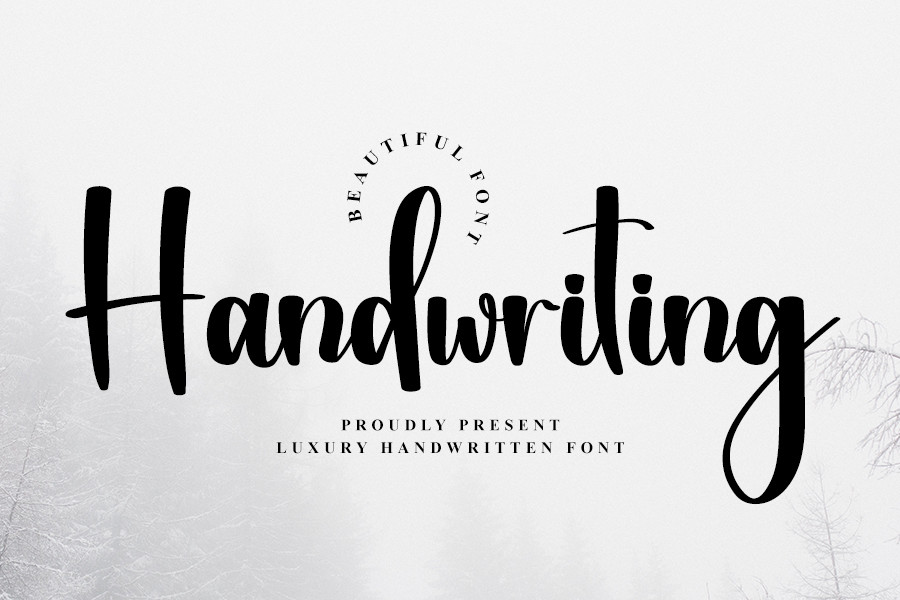
Practically, you can not create a design without typography elements since the font is a crucial point in enhancing the design value. Thus, you must learn about the 6 font classifications in typography to implement them into your design correctly.
Key Takeaways:
- The importance of typography in design for business to elevate brand identity.
- Successful brands pull the design with the correct typography pick for their logos.
- How to differentiate between the font classification in design.
The Type of Typography
1. Serif Typography
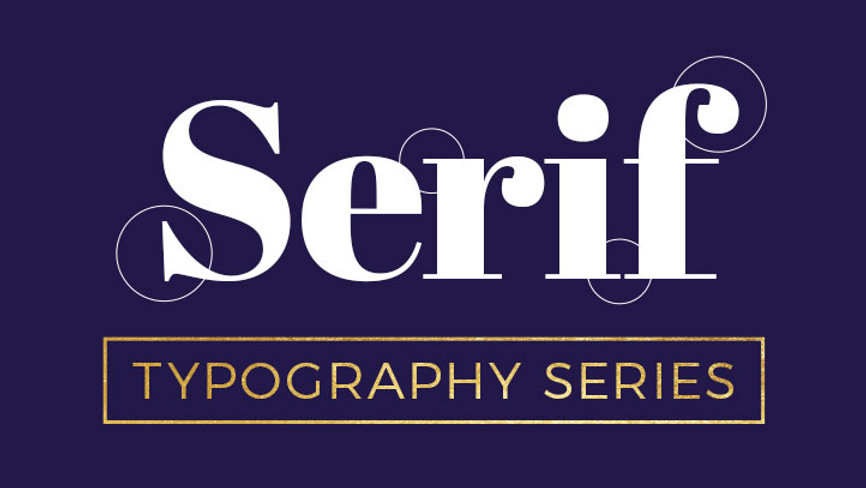
Serif is the most classic typeface that was found around the 15th century. This typography has an archetypal characteristic, which is the stroke in the top and bottom parts of the typeface. The curved or straight strokes represent classic, formal, and timeless typeface that can enhance readability.
There are 4 typefaces of Serif, such as.
- Old: Curved at the top and has minimum contrast between the strokes.
- Transitional: Occurs as a transition from old-styled Serif to modern Serif with more contrast between strokes and additional weight on the vertical axis.
- Modern: Modern looks are special with the ball shape at the end of strokes and less contrast rather than the Old and Transitional Serif.
- Slab: A bold and heavy Serif typeface with almost no contrast.
The most familiar Serif typefaces are Times New Roman, Georgia, and Baskerville, most likely to be used for formal occasions such as logos and books. Famous brands such as Vogue, Rolex, and Tiffany &Co. are using Serif for their logo to enhance the elegance to speak for the brand identity.
2. Sans Serif Typography
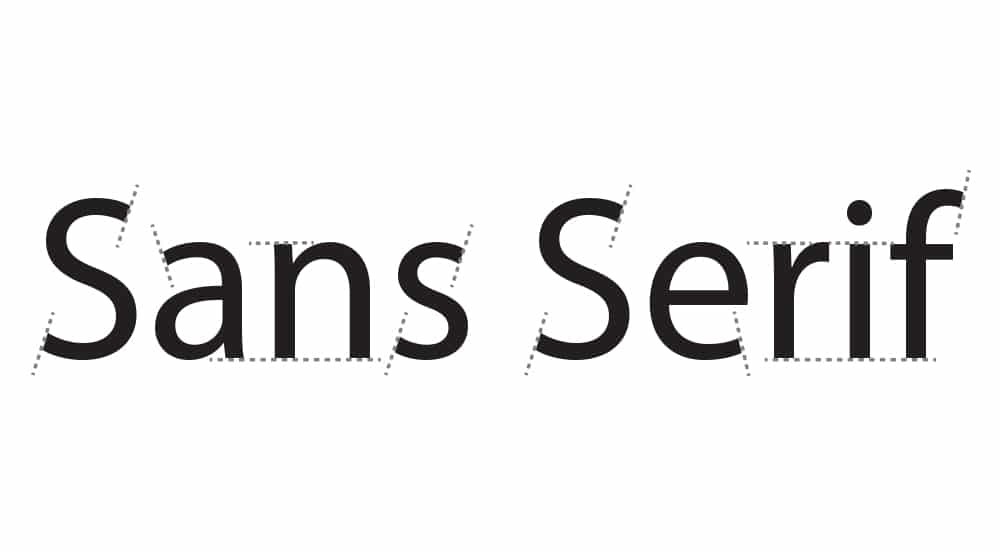
One of the 6 font classifications in typography that represent the opposite view of Serif is Sans Serif. This typography means without Serif which is to cut down the small strokes at the end of a letter that is given by Serif. The cut-down strokes give a straightforward typeface with clean lines that make Sans Serif look more modern.
The modernized typography in Sans Serif is most likely to be fitted to digital environments such as logo design, especially design with negative space. Adidas, Apple, Google, and Microsoft are famous brands that successfully gained popularity with their simple yet clean logo design using Sans Serif.
Sans Serif is divided into 4 typefaces.
- Grotesque: A low-contrast typeface with irregular strokes and width.
- Neo Grotesque: A clean typeface with consistent stroke widths.
- Humanist: A light angles stress typeface with various subtle stroke widths.
- Geometric: A minimalist typeface that looks symmetric in design.
3. Script Typography
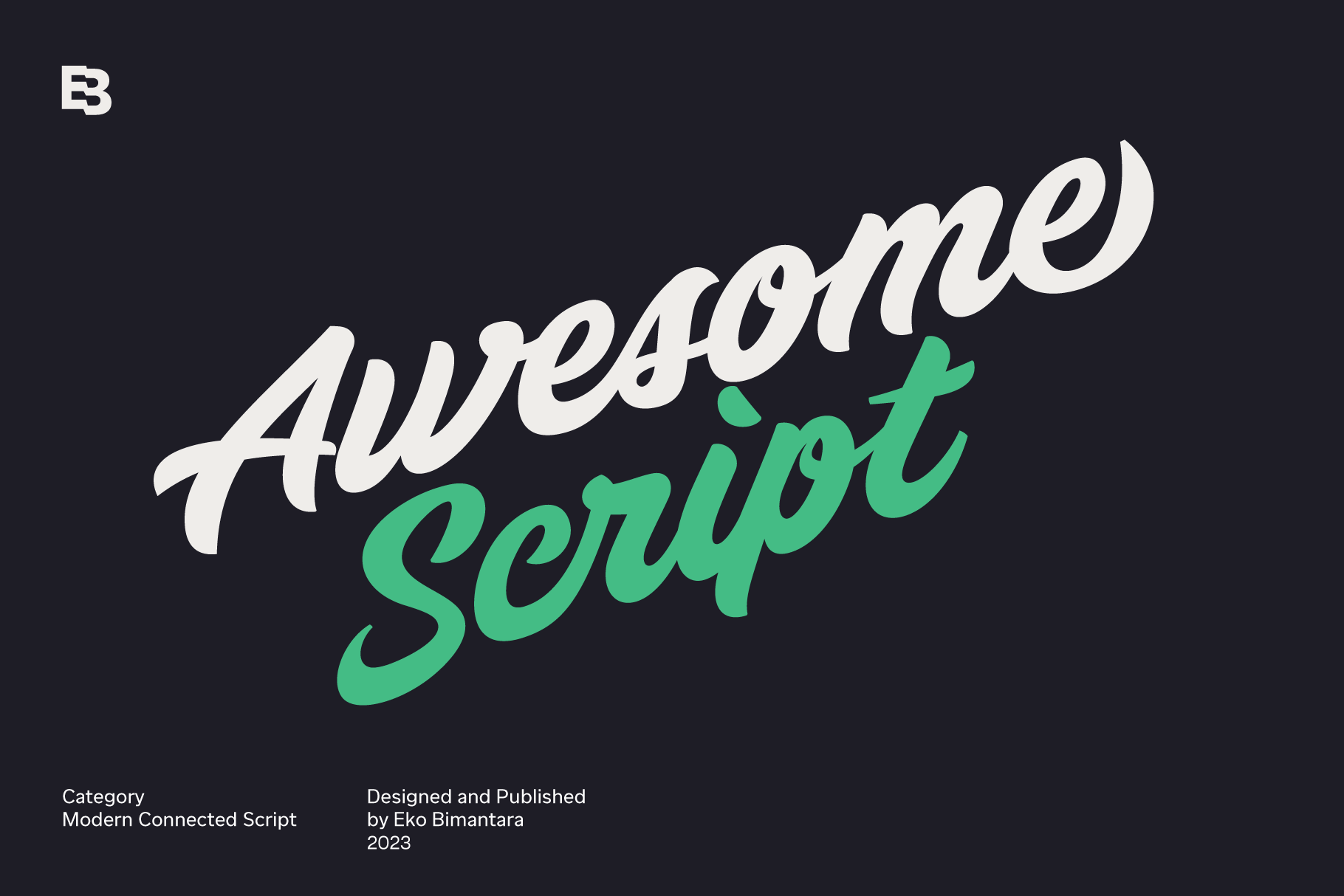
The script is a unique typography with a hand-lettering brush or calligraphy typeface. It is most likely to be used for headlines and slogans for branding to point out the brand concept, such as vintage, elegant, etc.
Take a look at how Ford, Coca-Cola, Barbie, and Disney successfully pulled the Script font into the brand logos. You can enhance your design by using Alex Brush, Kaushan Script, or Black Jack font to be a great copy of those famous brands to elevate brand identity.
Script classifications are divided into 3, including:
- Formal: Elegant and more traditional.
- Casual: Informal, more like human-touch typography, and seems more friendly, Disney uses it.
- Calligraphic: The Calligraphic Script uses a flat-tipped brush to give a touch of vintage font style.
4. Monospaced Typography
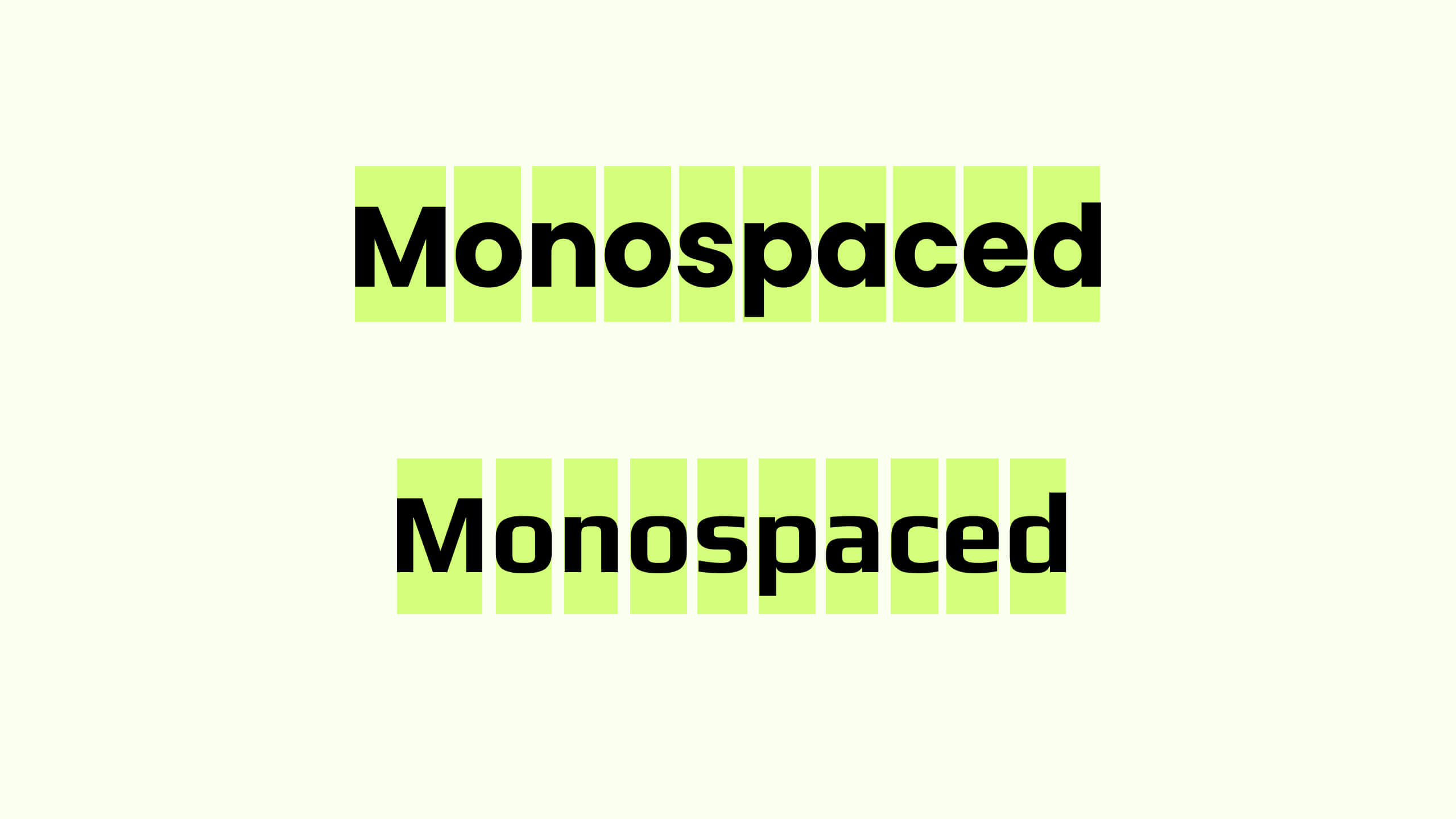
This one of 6 font classifications in typography serves a high level of readability with consistent spacing and width for each character. What’s more, Monospaced can be involved in Serif, Sans Serif, or Script classification to evoke vintage or retro typography design.
You are probably already familiar with League Mono, Courier, and Apercu Mono, they are typically Monospaced fonts. Those typographies are most likely to be used for data writing, coding, and programming due to the maximum readability. Here are 6 types of Monospaced typography.
- Classic: Type-writer-inspired typography to evoke traditional and retro style.
- Modern: More clean lines and minimalist typography design.
- Programming: Enhance code readability.
- Terminal: The cleanest Monospaced for high readability.
- Display: The most various Monospaced that combine elements, proportion, and decoration.
- Script: A perfect match of Script and Monospaced typographies.
5. Display Typography
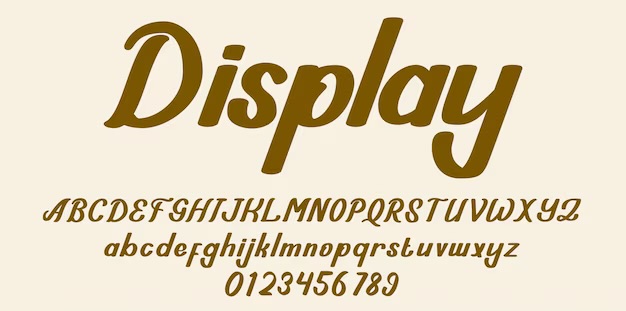
Practically, Display typography is a combination of fonts with bold and striking letterforms. The casual bigger size distinguishes this typography from the original typefaces that properly to be used for headings. A key tip for pulling the Display typography is to balance the proportion of the heading and body text to convey messages.